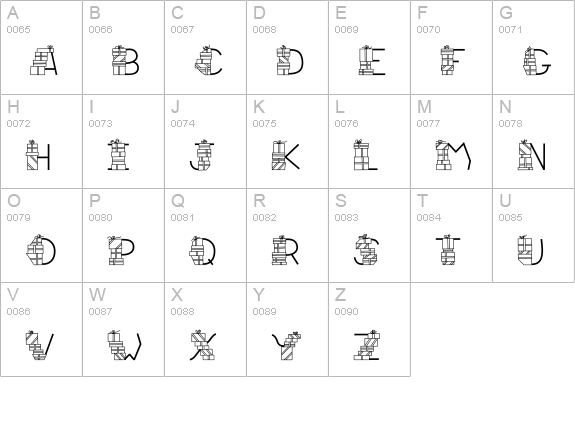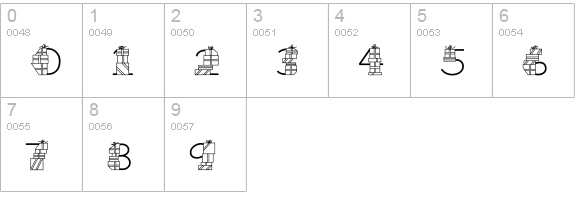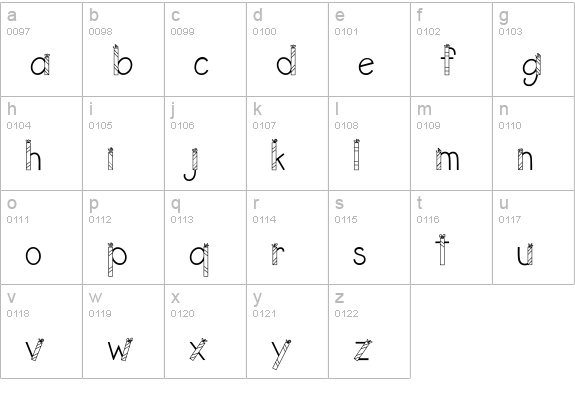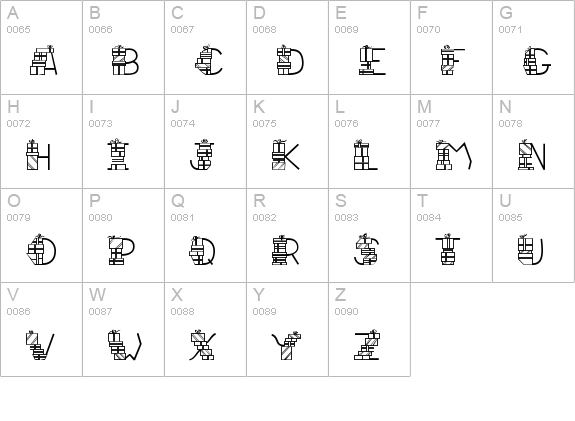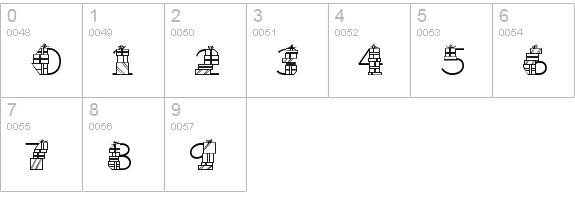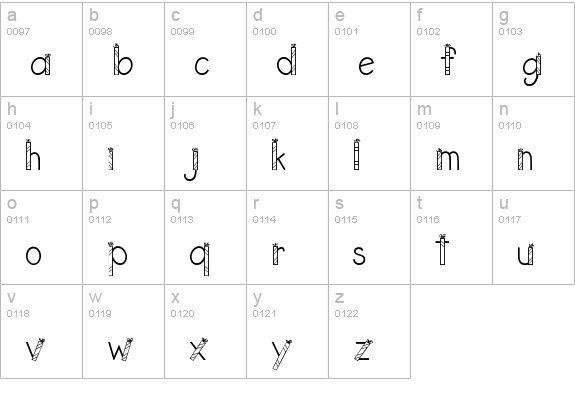
CK Gifts Font Details
Introducing CK Gifts font, a whimsical and charming typeface that is perfect for adding a touch of playfulness to your designs. With its unique handwritten style and decorative elements, CK Gifts font is sure to bring joy and creativity to any project. Whether you're designing invitations, greeting cards, or social media graphics, this font will make your text stand out in a delightful way. The best part? CK Gifts font is available for free download at FontsMarket.com. You can easily access this lovely font and start using it in your projects without any cost. Don't miss out on the opportunity to add a fun and festive vibe to your designs with CK Gifts font!